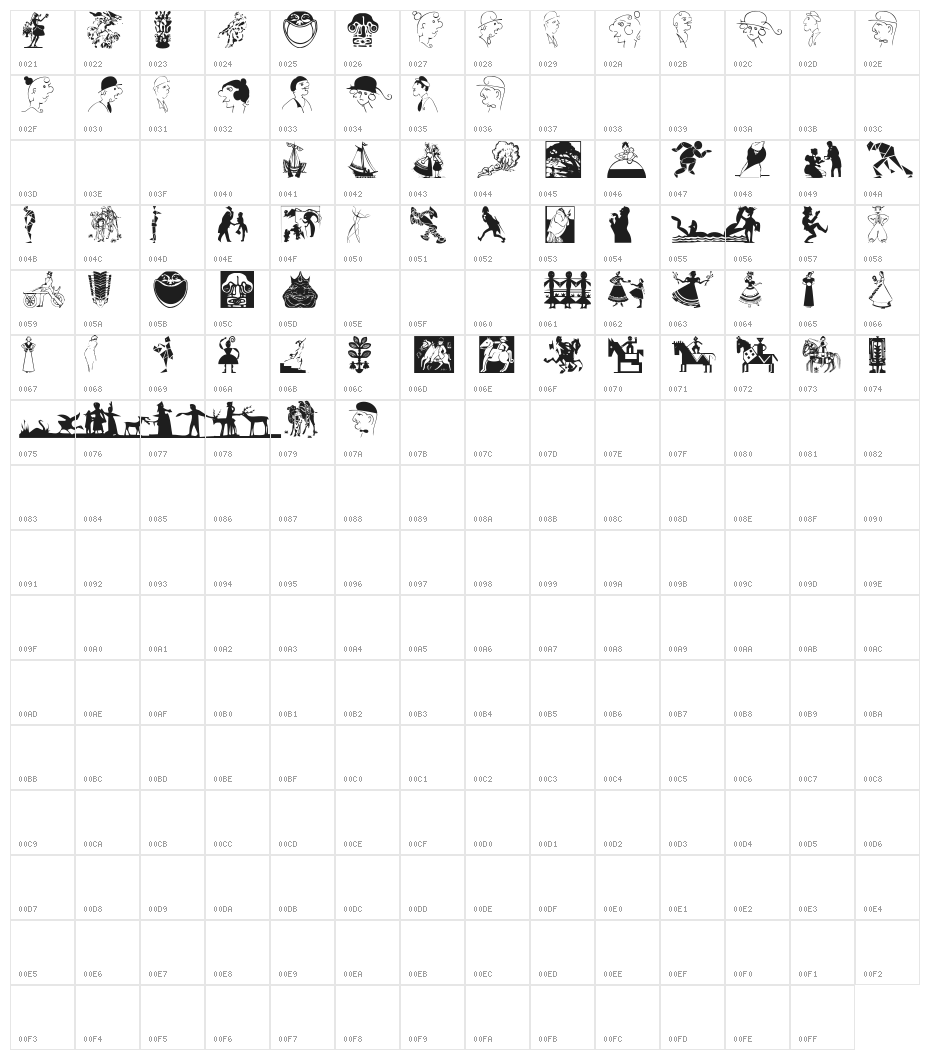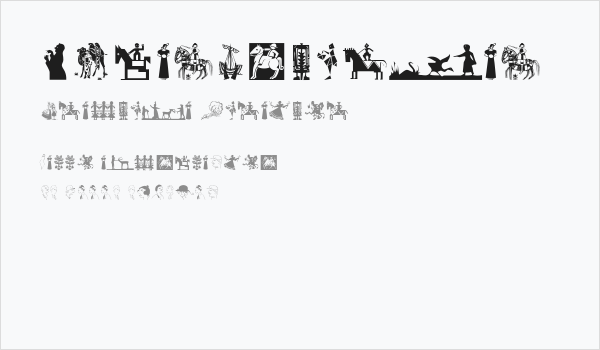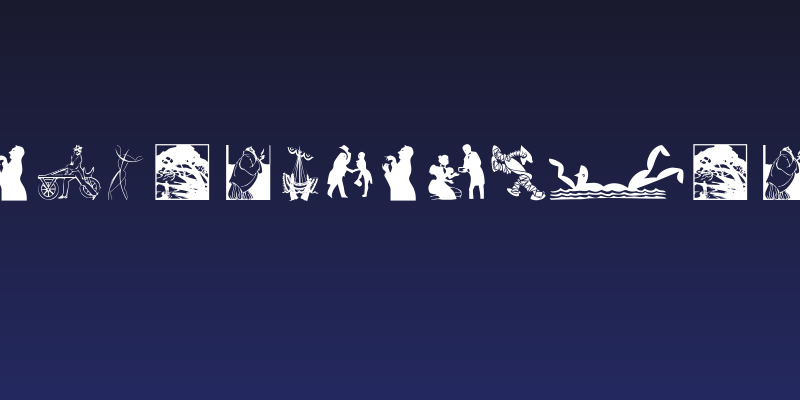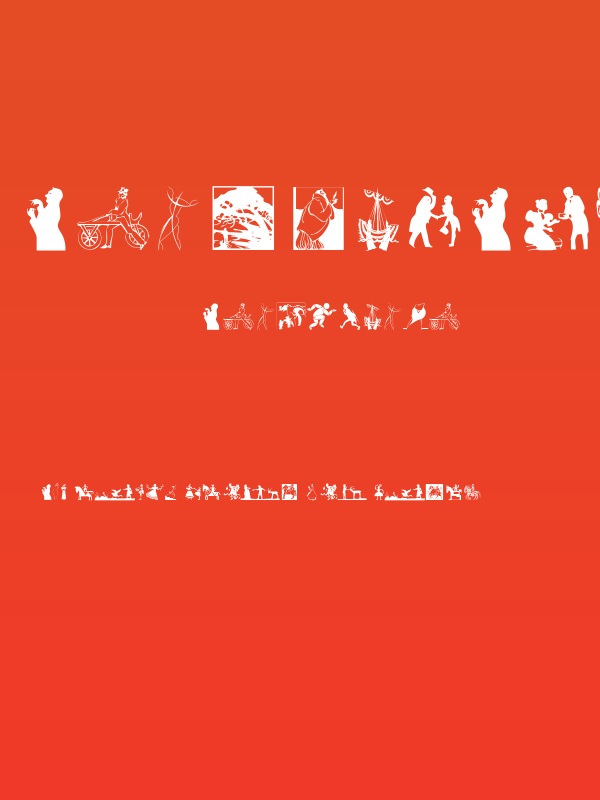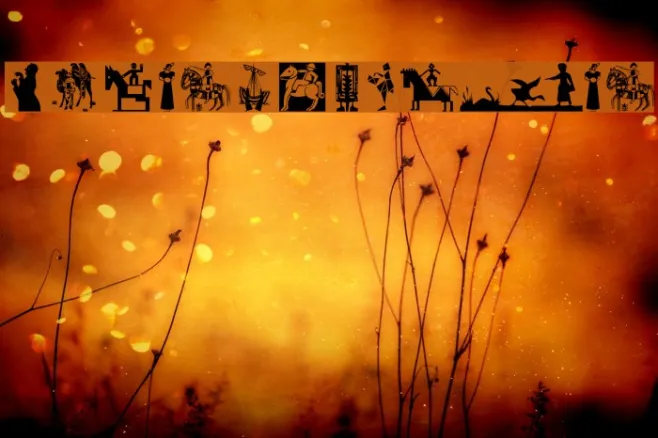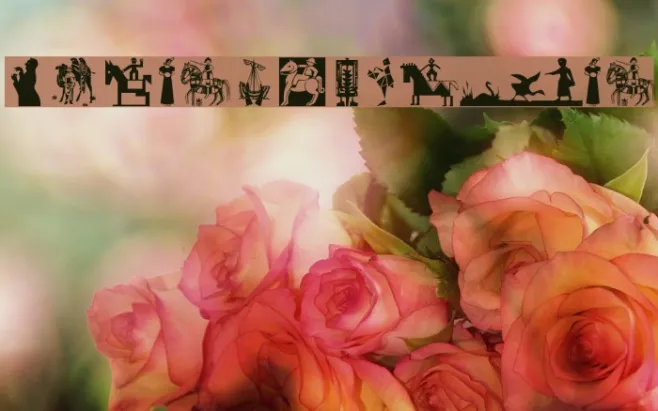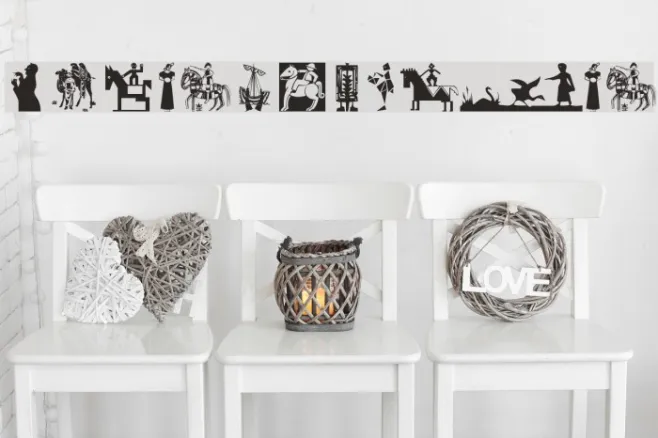
TypesAntiques Font
TypesAntiques Description
A decorative dingbat font featuring a variety of vintage-style illustrations, including people, animals, scenes, and caricatured faces, rendered in a hand-drawn, whimsical manner with both solid and outlined elements.
| Overall Style | Vintage, Decorative, Whimsical |
| Use Case | Decorative elements, Illustrative accents, Themed graphics |
| Proposed Projects | Invitations, posters, scrapbooking, themed event materials, decorative borders, and creative branding. |